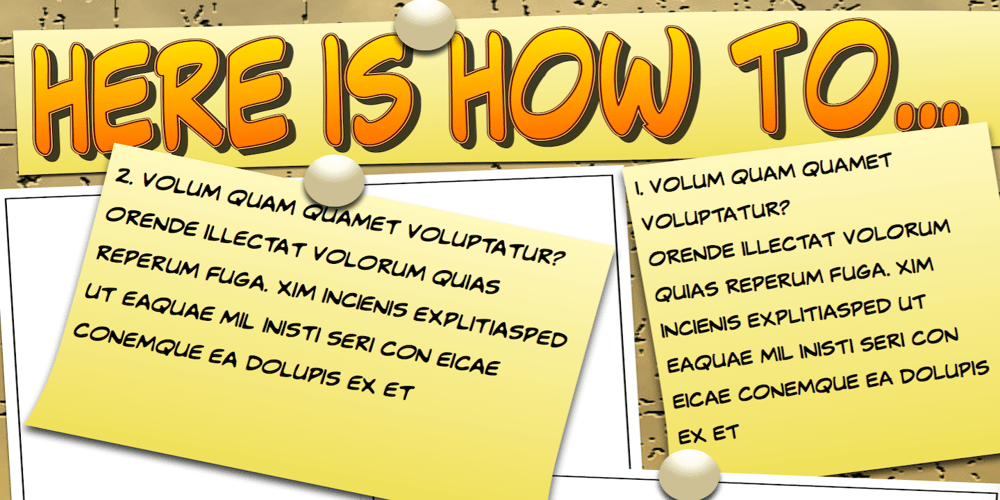
NorB Comic Font Family was designed by Nor Eddine Bahha and published by NorFonts. NorB Comic contains 10 styles and family package options. NorB Comic fonts are handwritten text fonts inspired from my childhood comic comic-books, they can be used with any word processing program for text and display use, print and web projects, apps and ePub, Comic Books, graphic identities, branding, editorial, advertising, scrapbooking, cards and invitations … or even just for fun! NorB Comic fonts come with 6 weights each with their matching italics and in a Normal and Condensed version.